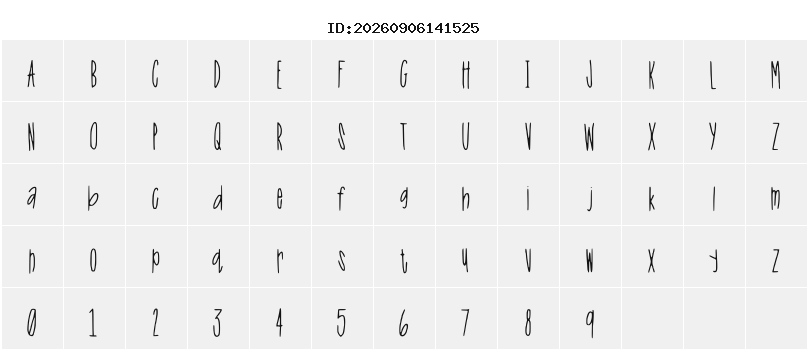
• Font Name: Tall_N_Skinny
• Full Font Name: Tall_N_Skinny
About Tall_N_Skinny.ttf
Tall_N_Skinny.ttf is a modern, elegant sans-serif font designed for ultimate readability and visual harmony. Perfect for branding, headlines, web design, and print materials.